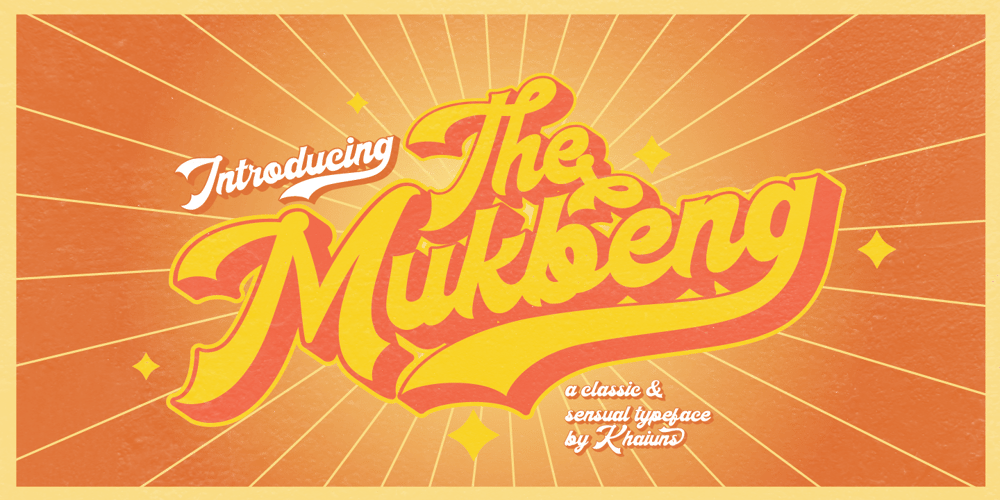
Mukbeng Font Family was designed by Khair Unnas and published by Khaiuns. Mukbeng contains 3 styles and family package options. Mukbeng Script is a bold script layered with outlines and extrusions, Mukbeng is very inspired by the famous retro typographical design of the late 60s to 70s. Made in combination with hand letters, it comes with dramatic movements and it’s great for subsequent creative projects that require a retro vibe or a modern twist.Ideal for logos, handwritten quotes, product packaging, header, poster, merchandise, social media & greeting cards.Features include: Alternative Styles, Swashes, Ligatures, Contextual and Style Sets. You can choose an alternative to substitution, Mukbeng has many variants per letter.To enable the OpenType Stylistic alternates, you need a program that supports OpenType features such as Adobe Illustrator CS, Adobe Indesign & CorelDraw X6-X7.There are additional ways to access alternates, using Character Map (Windows), Nexus Font (Windows), Font Book (Mac) or a software program such as PopChar (for Windows and Mac).